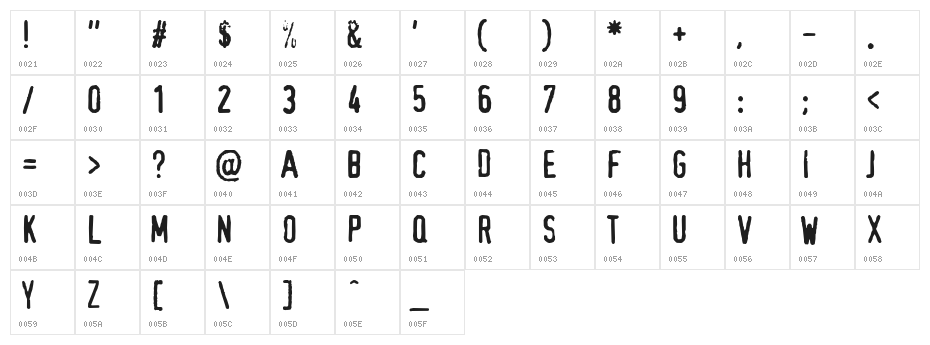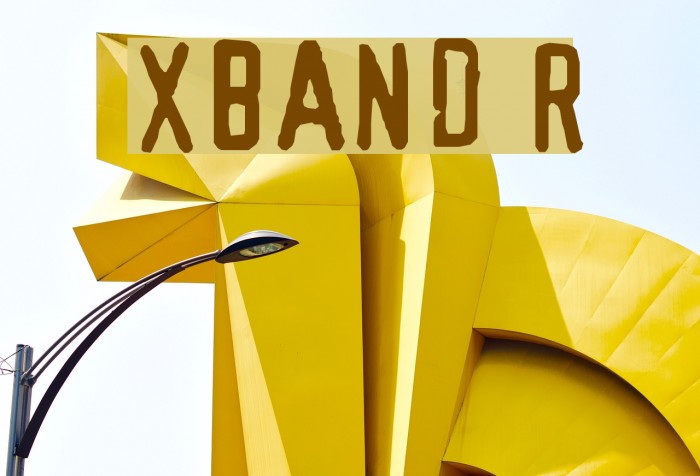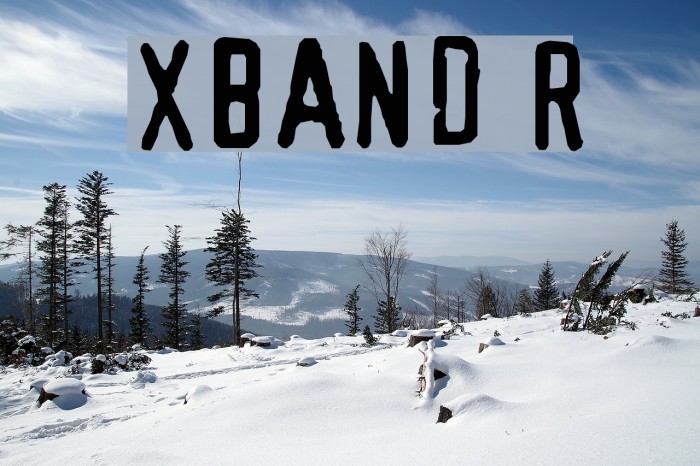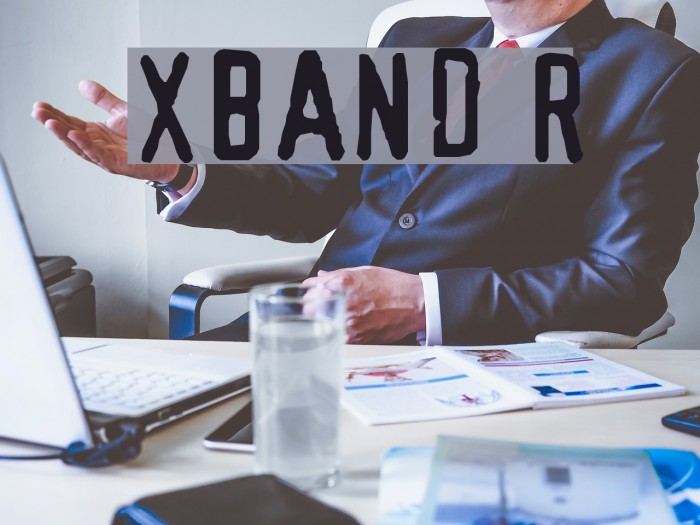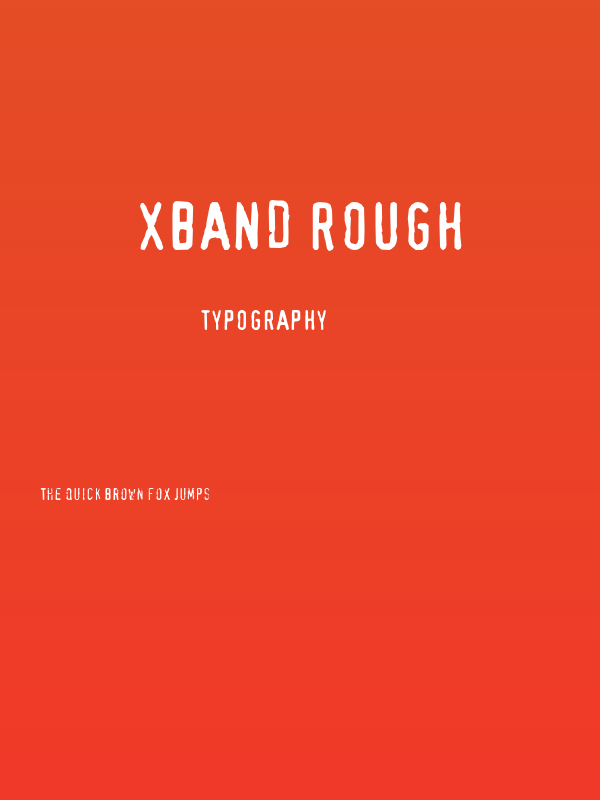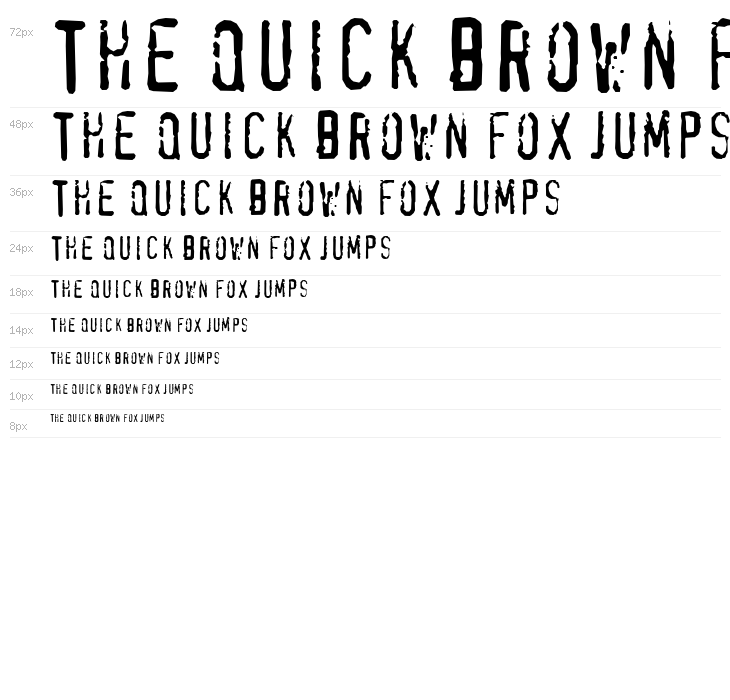
XBAND Rough Font
XBAND Rough Description
This font features a rugged, distressed appearance, giving it a bold and edgy look. The characters are uppercase and numerals, with a rough texture that suggests a worn or weathered effect. The design is reminiscent of stencil or industrial styles, making it ideal for projects that require a strong, impactful visual presence. The letters are evenly spaced, maintaining a consistent alignment despite their irregular edges. This font is perfect for creating a gritty, urban aesthetic, suitable for posters, album covers, or any design that needs a touch of raw, unpolished character.
| Proposed Projects | Posters, album covers, urban-themed designs, industrial branding. |